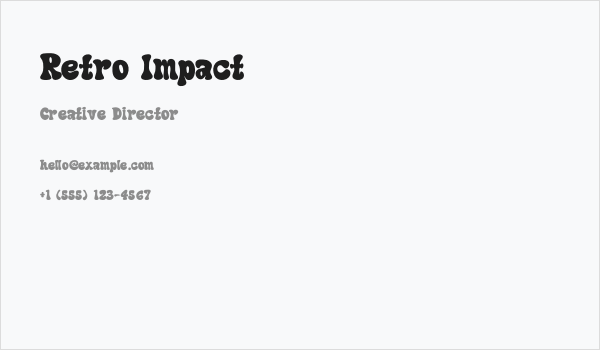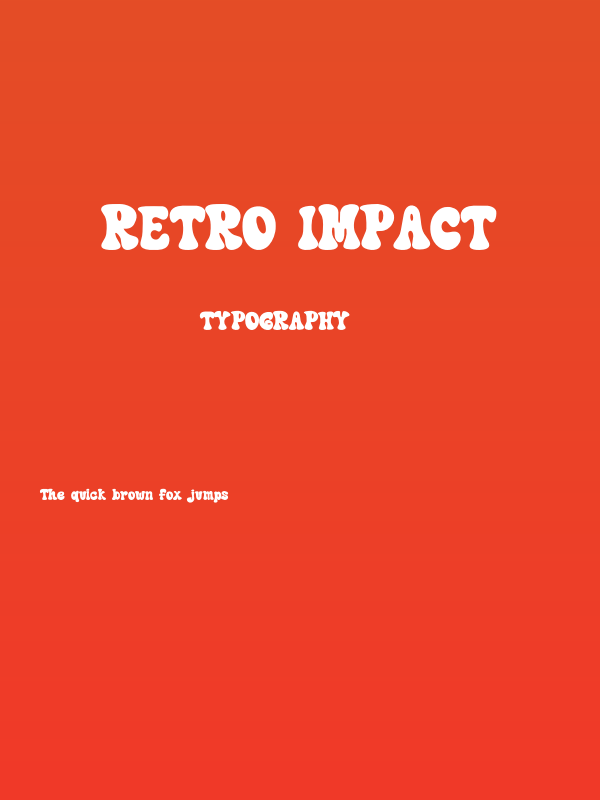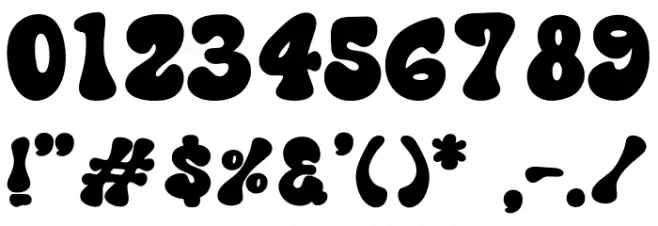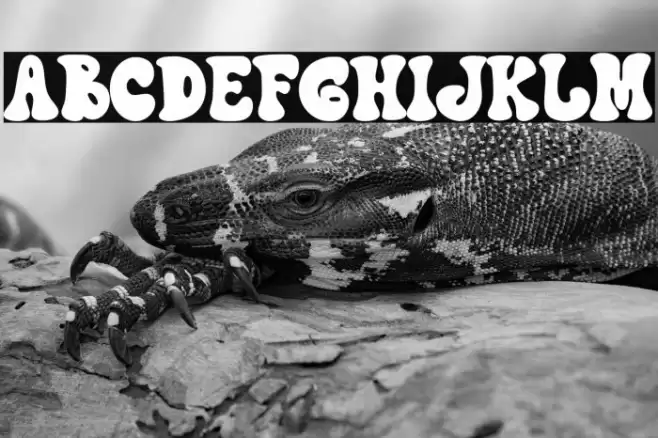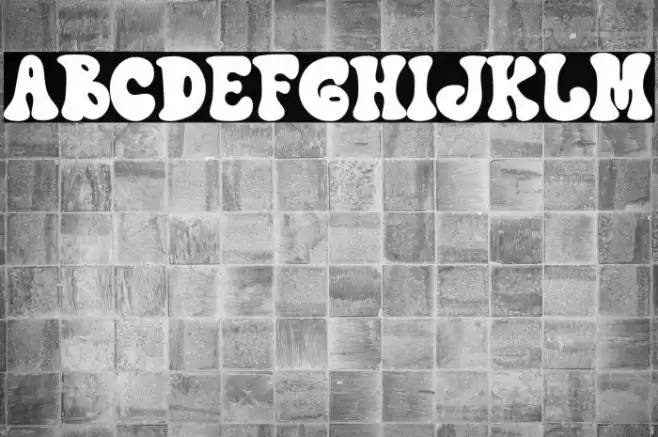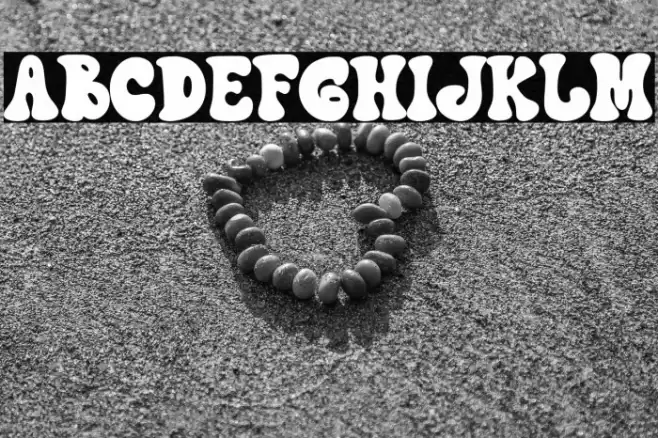
Retro Impact Font
Retro Impact Description
This font exudes a playful and bold retro vibe, characterized by its thick, rounded strokes and whimsical curves. The letters are heavily weighted, giving them a strong presence, while the rounded edges soften the overall look, making it approachable and fun. The font's design is reminiscent of the 1960s and 1970s psychedelic and pop culture aesthetics, with a bubbly and dynamic form that captures attention. Its exaggerated curves and thick lines create a sense of movement and energy, making it ideal for designs that require a bold statement. The font includes a full set of uppercase and lowercase letters, numerals, and a variety of special characters, ensuring versatility in its application.
| Overall Style | Retro |
| Proposed Projects | Ideal for retro-themed posters, music festival branding, playful packaging, and eye-catching headlines. |